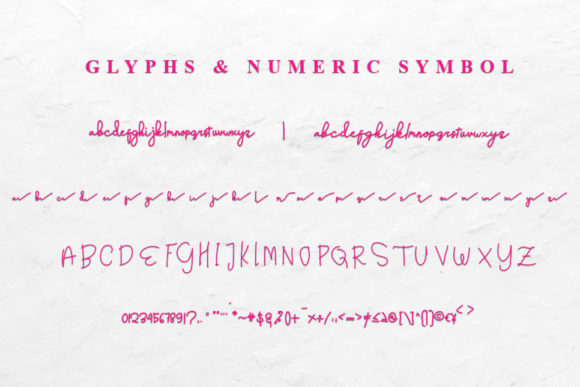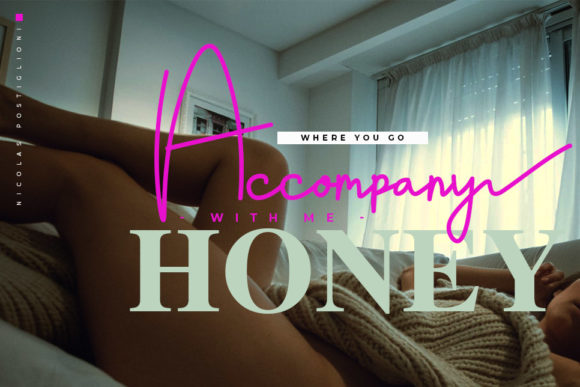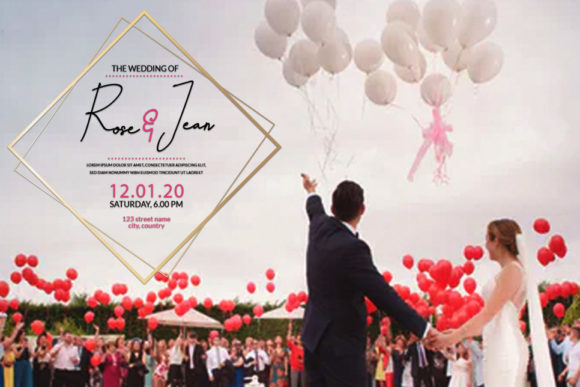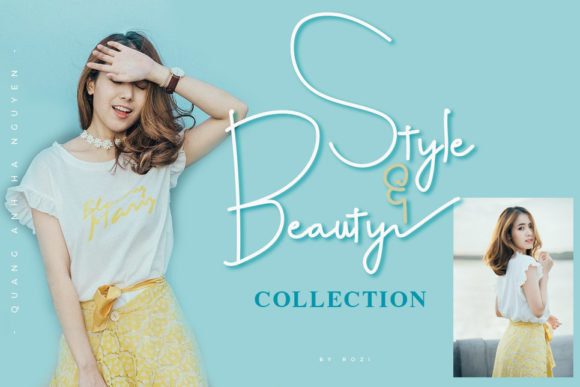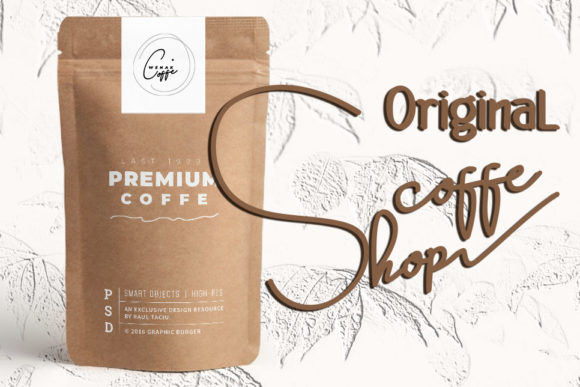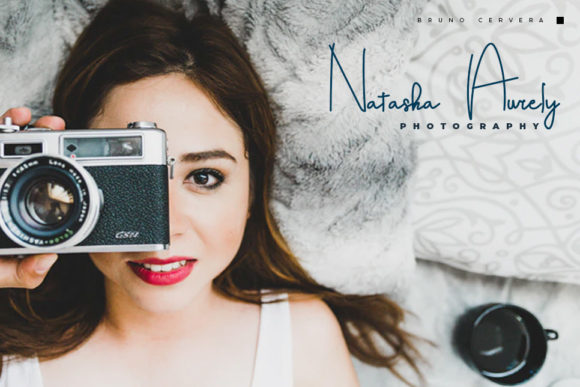
Introducing Angle Rose Font: The Ultimate Handwritten Script for Creative Projects
Are you tired of using the same old fonts for your creative projects? Look no further than Angle Rose Font, a cute and casual handwritten script that is sure to bring a touch of personality to your designs. With its incredibly friendly feel and gorgeous swashes and ligatures, Angle Rose is the perfect choice for designers and crafters looking to add a unique touch to their work.
What Makes Angle Rose Font So Special?
Angle Rose Font is a true standout in the world of typography. Its handwritten script features a charming, casual feel that is reminiscent of a personal letter or a handmade card. The font’s gorgeous swashes and ligatures add a touch of elegance and sophistication, making it perfect for a wide range of creative projects.
One of the things that sets Angle Rose apart from other fonts is its incredible versatility. Whether you’re looking for fonts for Instagram, calligraphy scripts for DIY projects, or a unique font for a branding project, Angle Rose is the perfect choice. Its friendly feel and beautiful swashes and ligatures make it suitable for a wide range of applications, from formal to informal.
Features of Angle Rose Font
So, what makes Angle Rose Font so special? Here are just a few of its key features:
- Cute and casual handwritten script: Angle Rose Font features a charming, casual handwritten script that is perfect for adding a personal touch to your designs.
- Gorgeous swashes and ligatures: The font’s beautiful swashes and ligatures add a touch of elegance and sophistication, making it perfect for a wide range of creative projects.
- Incredibly friendly feel: Angle Rose Font has an incredibly friendly feel that is sure to make your designs stand out.
- Versatile: Whether you’re looking for fonts for Instagram, calligraphy scripts for DIY projects, or a unique font for a branding project, Angle Rose is the perfect choice.
Uses for Angle Rose Font
So, what can you use Angle Rose Font for? The possibilities are endless! Here are just a few ideas to get you started:
- Instagram fonts: Use Angle Rose Font to add a personal touch to your Instagram posts and stories.
- DIY projects: Angle Rose Font is perfect for calligraphy scripts and other DIY projects, such as handmade cards and invitations.
- Branding projects: Use Angle Rose Font to add a unique touch to your branding projects, such as logos and business cards.
- Stationery: Angle Rose Font is perfect for creating custom stationery, such as letterheads and notebooks.
Why Choose Angle Rose Font?
So, why choose Angle Rose Font for your creative projects? Here are just a few reasons:
- Unique and creative: Angle Rose Font is a unique and creative font that is sure to make your designs stand out.
- High-quality: Angle Rose Font is a high-quality font that is designed to produce beautiful results.
In conclusion, Angle Rose Font is a cute and casual handwritten font that is perfect for designers and crafters looking to add a unique touch to their creative projects. With its incredibly friendly feel and gorgeous swashes and ligatures, Angle Rose is the perfect choice for a wide range of applications. Whether you’re looking for fonts for Instagram, calligraphy scripts for DIY projects, or a unique font for a branding project, Angle Rose Font is the perfect choice.